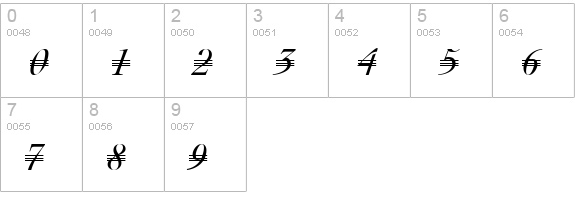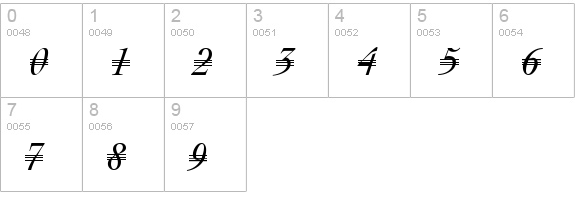
Triple SlashSerif Font Details
Introducing Triple SlashSerif font, an exquisite typographic masterpiece that effortlessly combines elegance with a touch of modernity. This font is designed with utmost precision, paying meticulous attention to every detail, resulting in a truly captivating typeface that is sure to leave a lasting impression. Triple SlashSerif font boasts an impeccable balance between classic serif elements and contemporary aesthetics, making it the perfect choice for a wide range of design projects. Whether you're working on branding, editorial design, packaging, or web design, this versatile font will elevate your creations to new heights. What sets Triple SlashSerif font apart is its ability to convey a sense of luxury and sophistication while maintaining readability and legibility. The carefully crafted serifs add a touch of refinement, while the clean lines and well-defined shapes ensure optimal readability even at smaller sizes. But the best part? Triple SlashSerif font is available for free! That's right, this remarkable typeface can be yours without spending a penny. Simply head over to FontsMarket.com to download this stunning font and unlock its full potential for your design projects. With its extensive character set, including uppercase and lowercase letters, numerals, punctuation marks, and multilingual support, Triple SlashSerif font offers endless possibilities for your creative endeavors. Bring your vision to life and make a statement with this exceptional font that is guaranteed to captivate audiences. So why wait? Take advantage of this incredible opportunity to enhance your design projects with Triple SlashSerif font, freely available for download at FontsMarket.com. Embrace the elegance, embrace the modernity, and create designs that will leave a lasting impression.